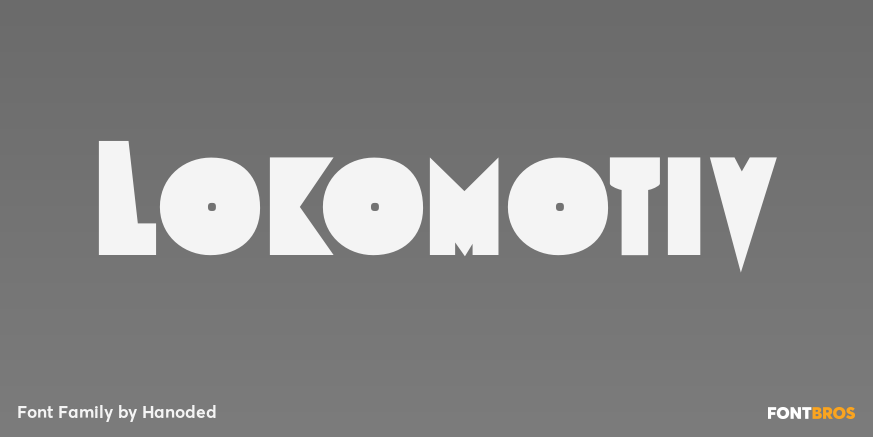
Lokomotiv
About Lokomotiv
The 1930 Geneva Motor Show (Salon International De l\’Automobile Et Du Cycle) showcased a lot of new cars, but one item in particular took my interest: the amazing art deco poster announcing the show. Lokomotiv font was based on this poster. It is a very…